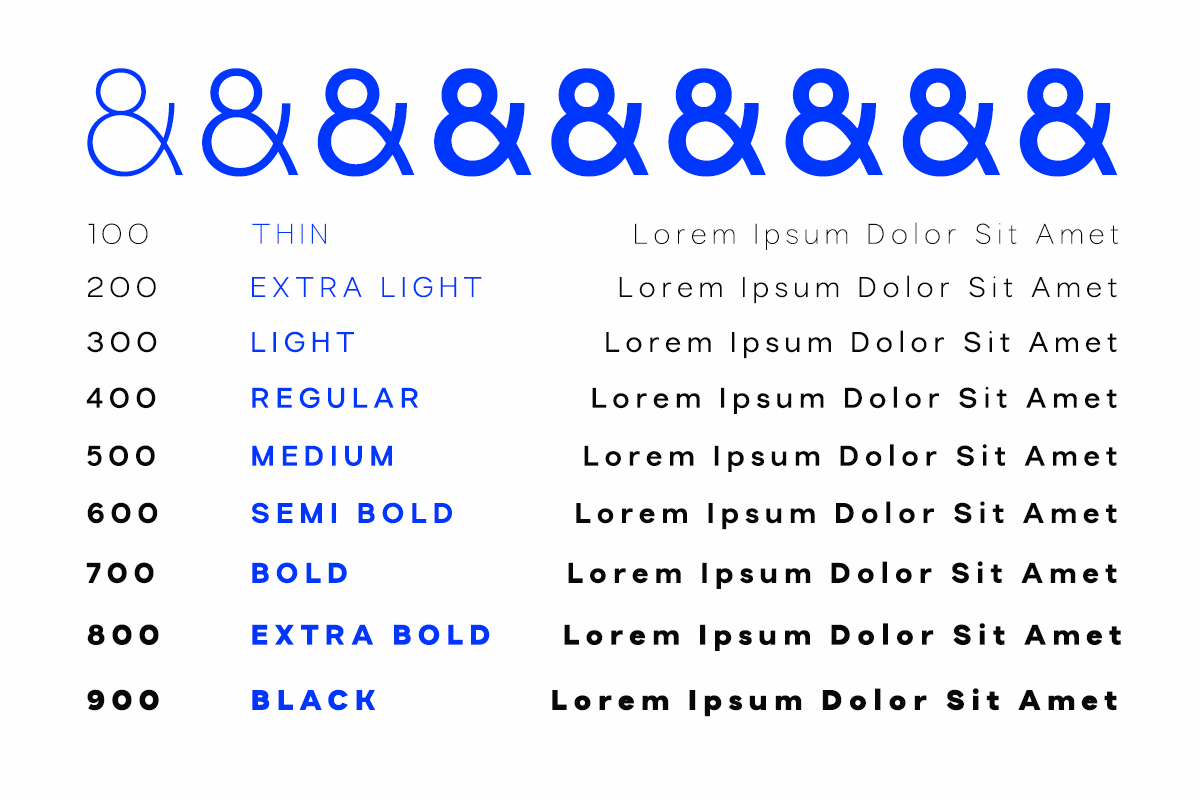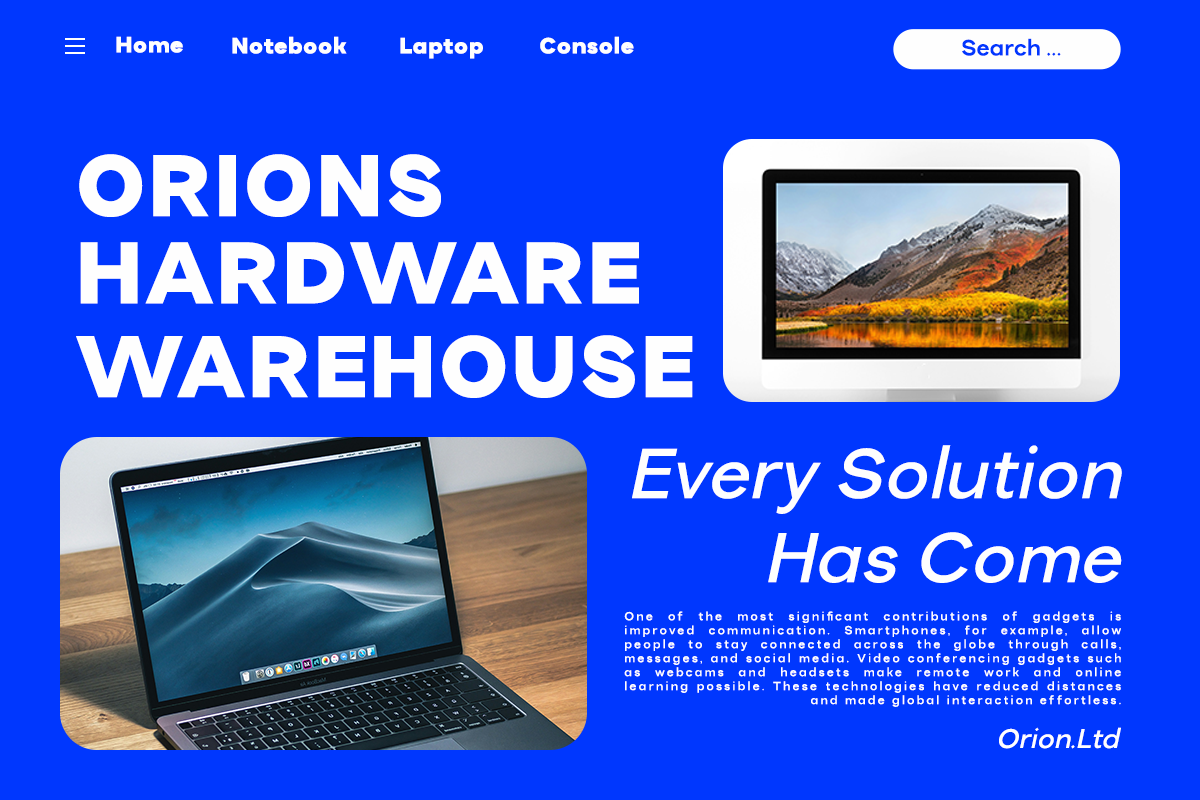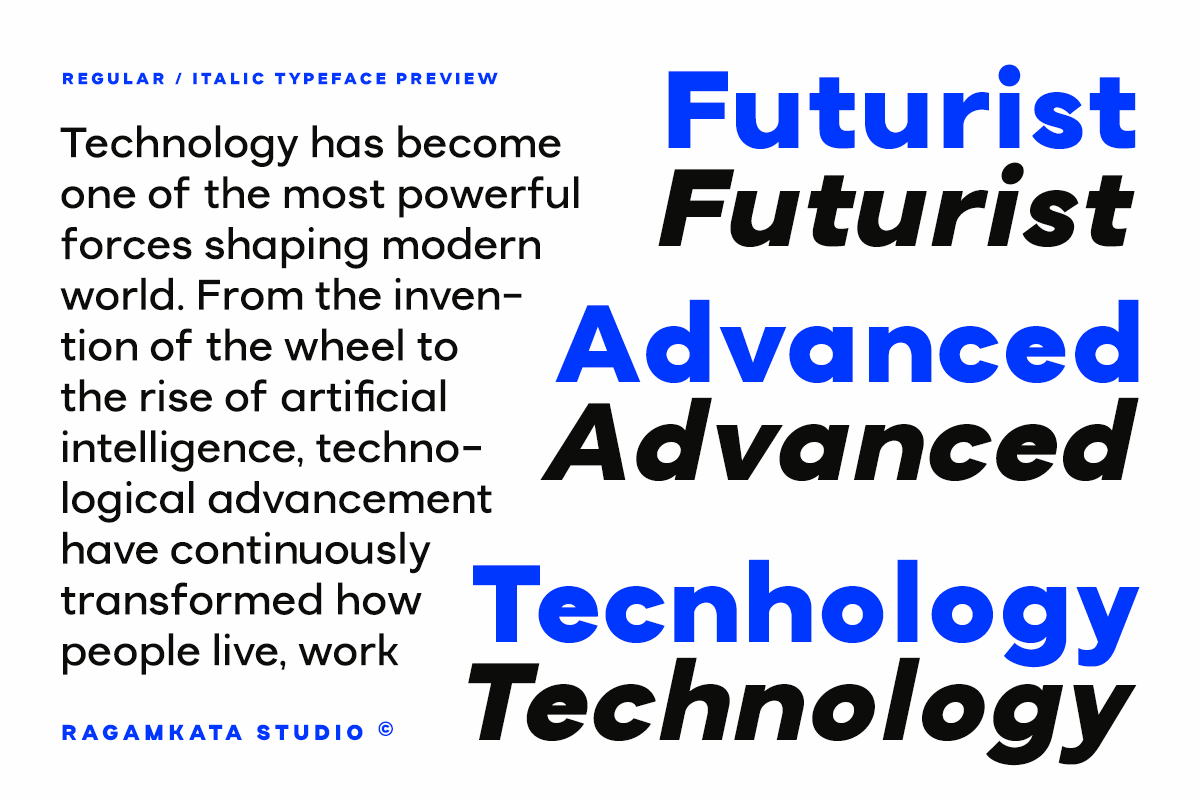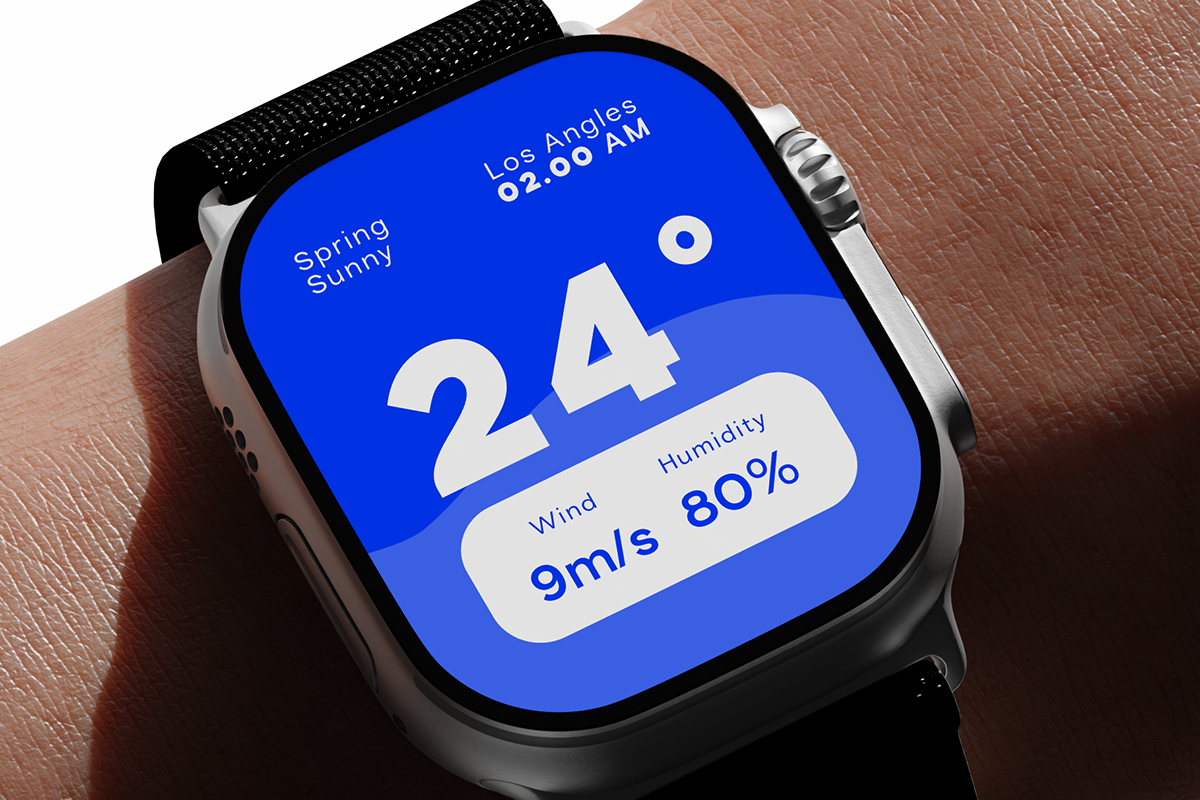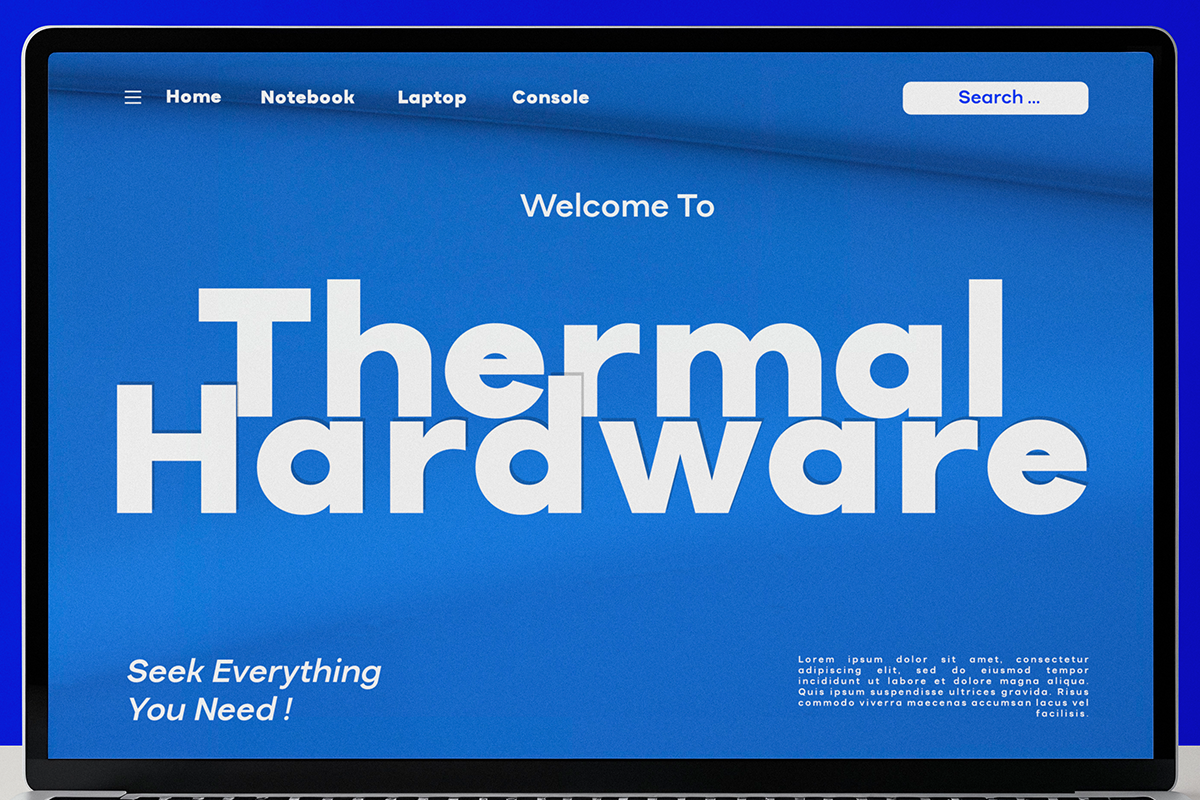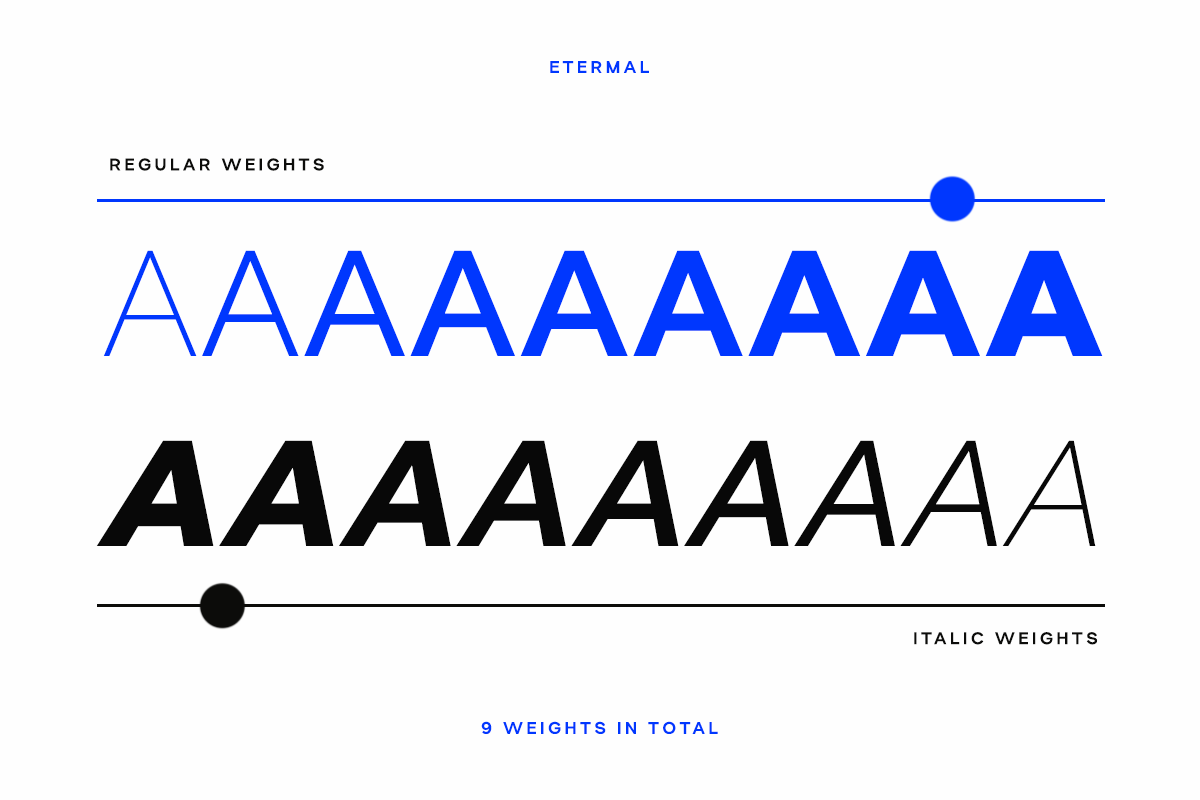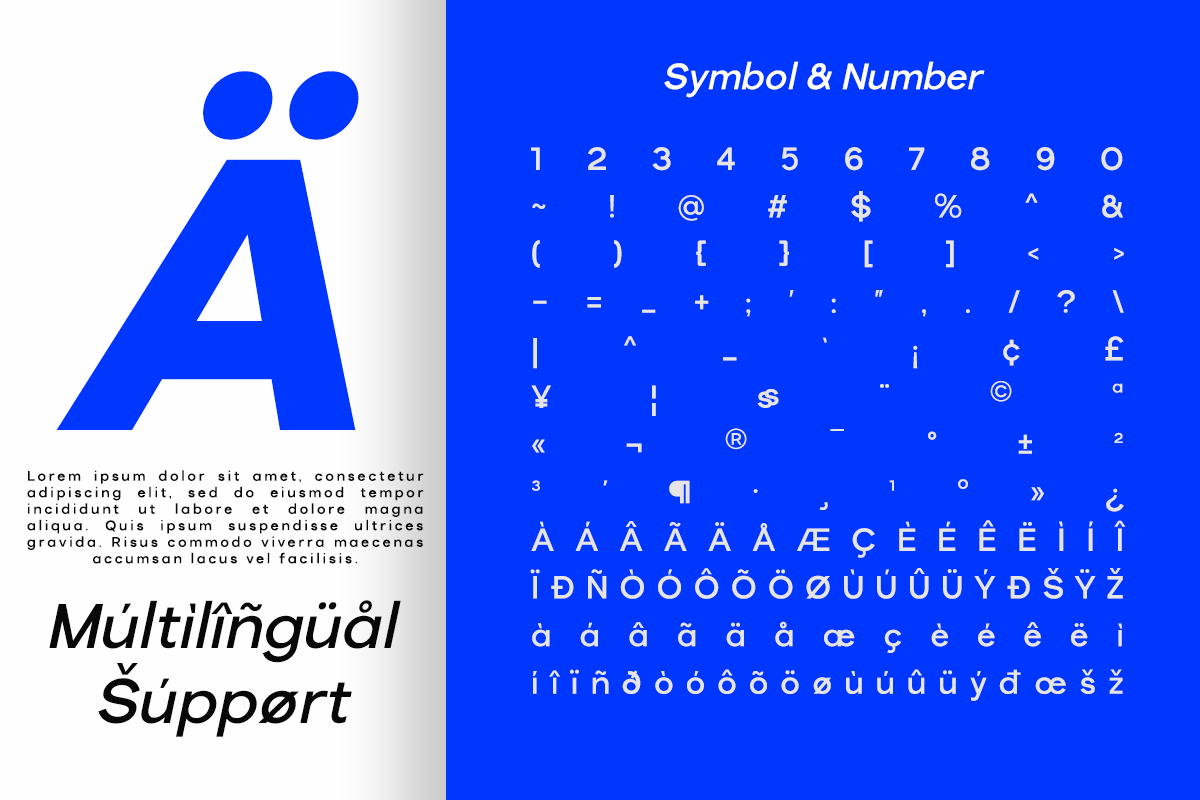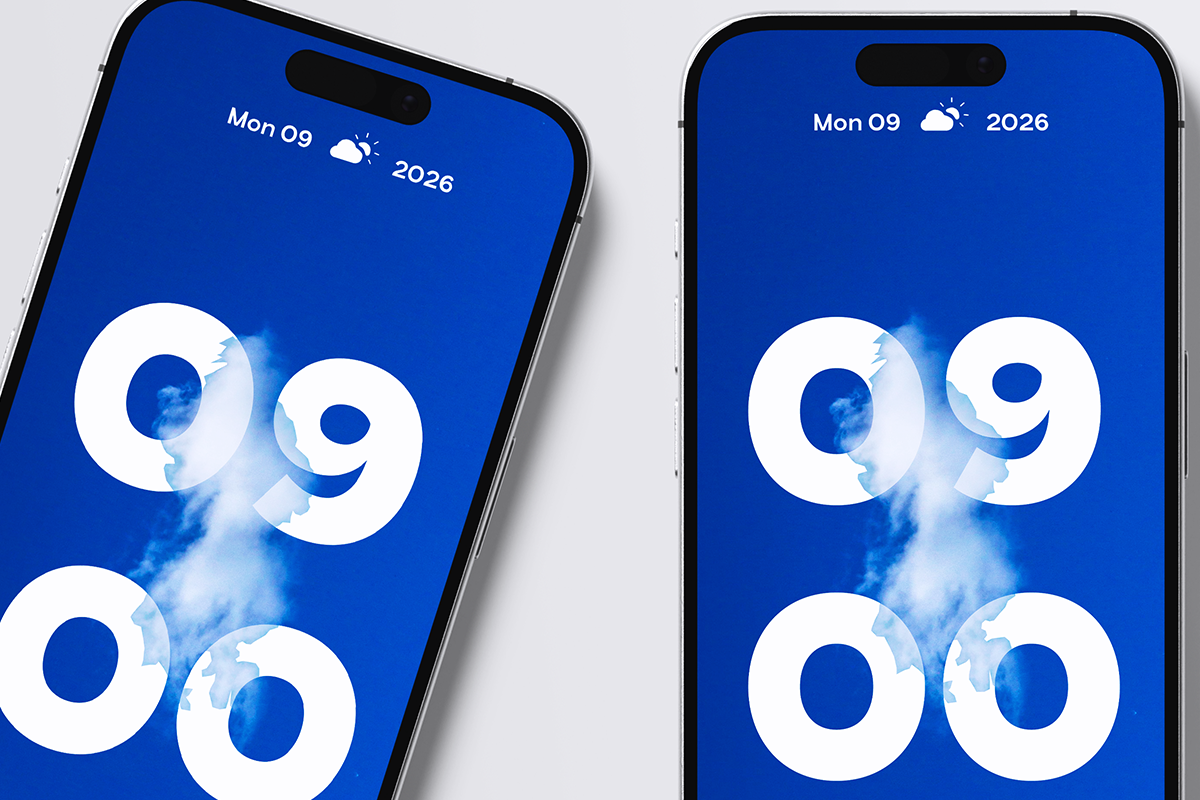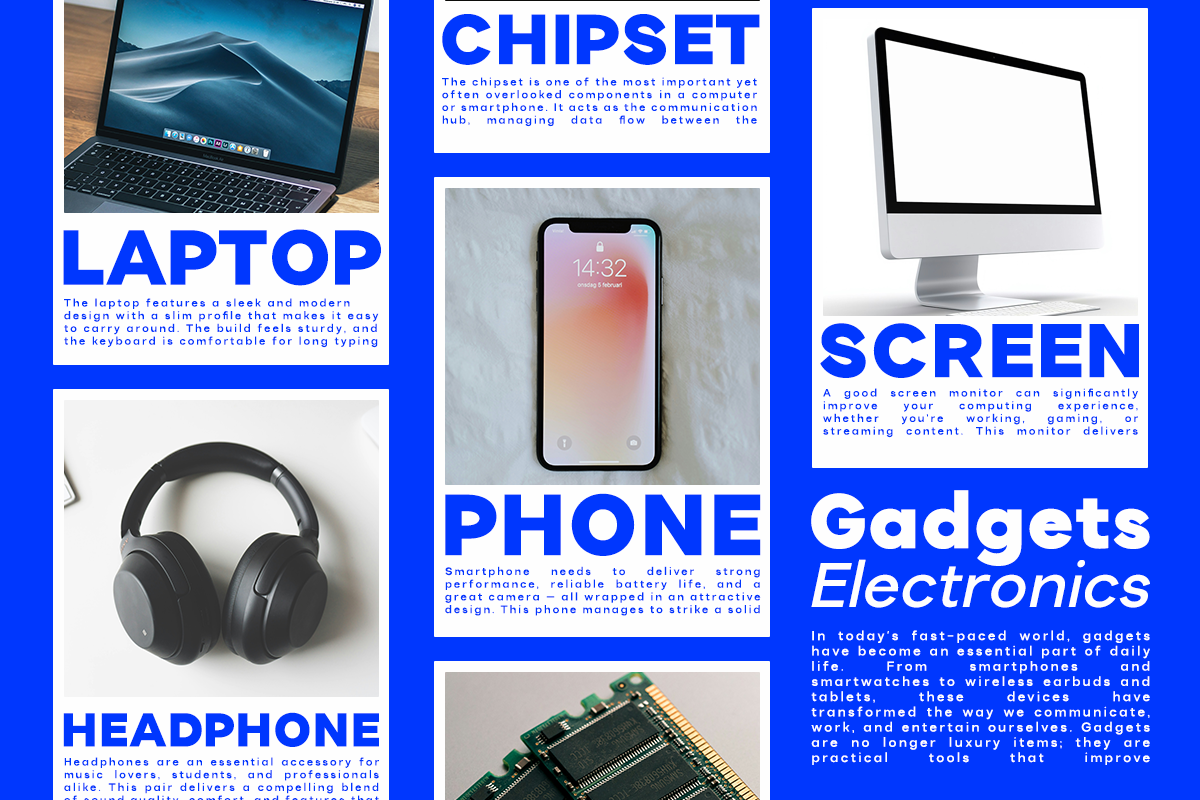
Variable Geometris Sans - Etermal
Etermal is a modern geometric sans serif family font designed to deliver clarity, balance, and timeless visual strength. Built on precise geometric construction and smooth proportional curves, Etermal creates a clean, contemporary appearance that feels confident, professional, and highly adaptable. Its strong structure ensures excellent readability while maintaining a sleek and modern personality.
Engineered as a complete font family with multiple weights, Etermal provides outstanding flexibility for branding, editorial design, web interfaces, corporate identity, advertising, and UI/UX projects. From logo systems, brand guidelines, presentations, mobile apps, websites, and dashboards to posters, brochures, packaging, and social media content, this font supports both minimal aesthetics and bold typographic statements with equal effectiveness.
Perfect for technology brands, startups, corporate identity, digital platforms, product branding, fintech, SaaS, and creative studios, Etermal brings professional precision and modern versatility into every design. Its geometric harmony and wide weight range empower designers to build consistent, scalable, and visually compelling brand systems across digital and print environments.